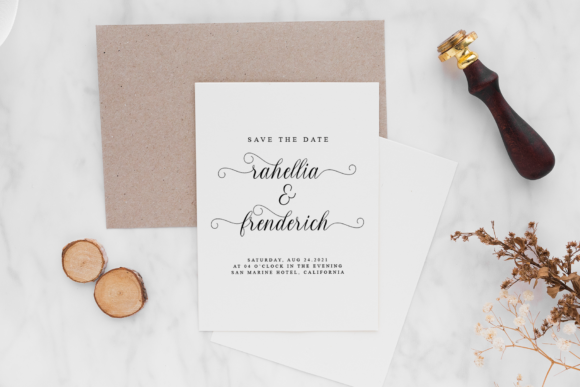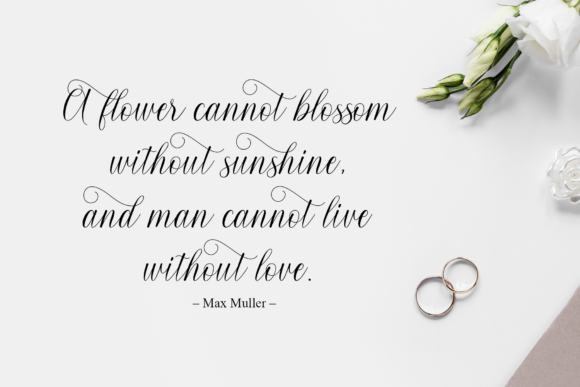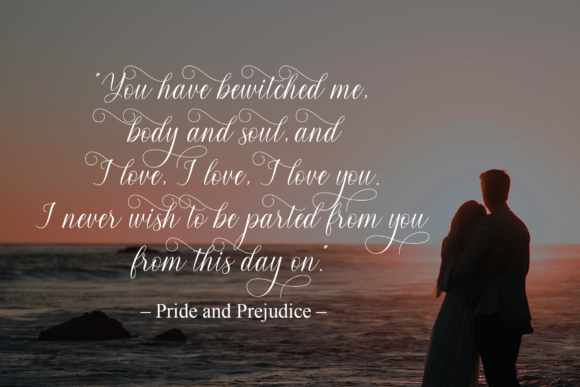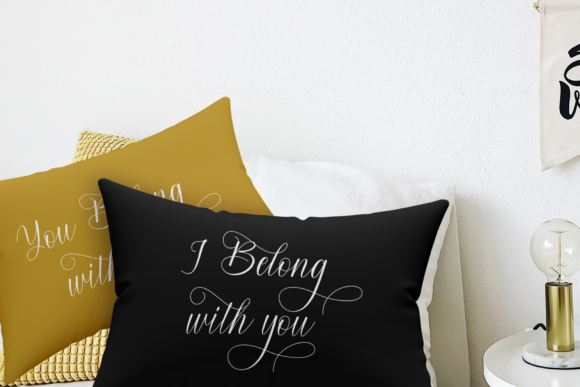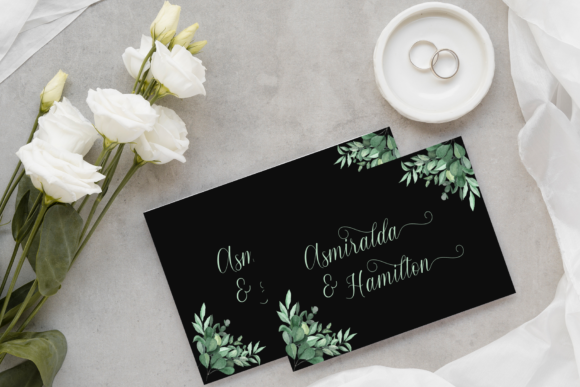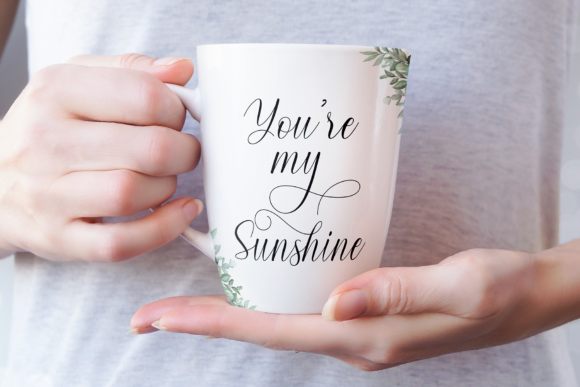
Enter the Honeylove Font, a delicate and stylish handwritten font that’s sure to capture your heart. This gorgeous font is PUA encoded, making it easy to access all of the glyphs and swashes you need to add a touch of elegance to your designs. Whether you’re working on a romantic wedding invitation or a whimsical children’s book, Honeylove Font is the perfect addition to your toolkit.
Honeylove Font Key Features
- Size and Resolution: The font is designed with a medium to large size, with each character optimized for print and digital use at a resolution of 300 DPI (dots per inch).
- Unique Characteristics: The Honeylove Font boasts a unique, hand-drawn style with a mix of cursive and script elements, making it perfect for creating eye-catching and elegant designs.
- Font Weight and Style: The Honeylove Font comes in multiple weights, from Light to Bold, and various styles, including Regular, Italic, and Script, allowing designers to experiment with different looks and feels.
- Scalability: The font is designed to be highly scalable, ensuring that it looks great in various sizes, from small captions to large headlines, without losing its unique character and charm.
Honeylove Font Review
I recently had the chance to dive into the Honeylove Font, and I must say, it’s a unique and captivating typeface. ✨ Here are a few things that stood out to me:
- Expressive and emotive feel: The Honeylove Font has a distinct, handwritten quality that can add a touch of personality to any project.
- Clean and elegant lines: Despite its playful nature, the font features crisp, well-defined lines that make it easy to read.
- Highly customizable: With multiple weights and styles to choose from, you can tailor the Honeylove Font to fit your specific design needs.
However, as with any font, there are some limitations to consider: ⚠️
- Not ideal for body text: Due to its cursive nature, the Honeylove Font may not be the best choice for large blocks of text.
- May require adjustments for digital use: The font’s expressive feel can sometimes lead to uneven spacing or letterforms when scaled up or down.
Overall, I think the Honeylove Font is a great addition to any designer’s toolkit. It’s perfect for adding a touch of whimsy to headings, titles, or other design elements where a more playful feel is desired. While it may have some limitations, its unique character and high level of customization make it a worthwhile choice for the right project.
Honeylove Font is a great choice for creating feminine and elegant designs. Use it for wedding invitations, baby shower invitations, or any other design that requires a touch of sweetness and sophistication. You can also use it to add a pop of color and personality to your designs.